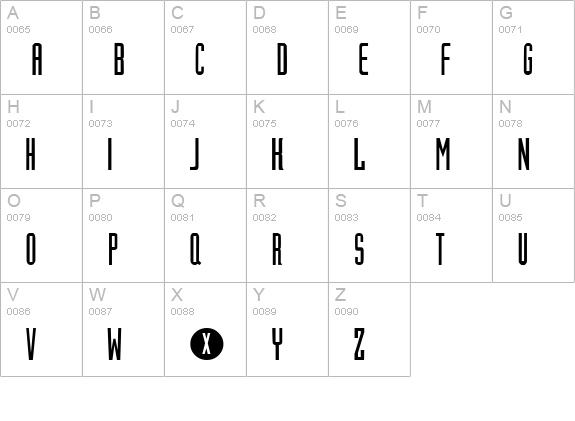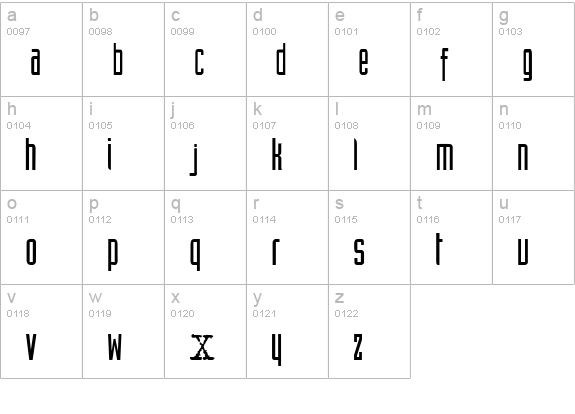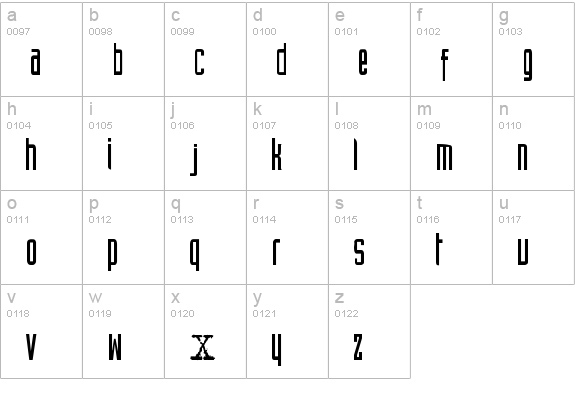
XFiles Font Details
Introducing XFiles font - a captivating and mysterious typeface that brings a touch of intrigue to your designs. Inspired by the iconic TV show, this font features unique and otherworldly letterforms that will transport your audience to a realm of supernatural storytelling. The XFiles font is perfect for adding a hint of suspense to your projects, whether you're working on posters, book covers, or social media graphics. Its bold and edgy style will make your text stand out and leave a lasting impression. Best of all, the XFiles font is completely free to download at FontsMarket.com. So, don't miss out on this opportunity to add a touch of the unknown to your designs with the XFiles font. Download it today and let your creativity run wild!